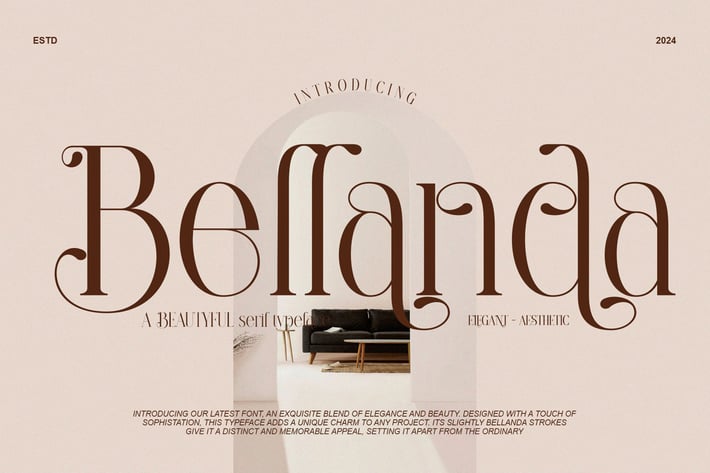
Bellanda Beautiful Serif Typeface
Bellanda Modern and beautiful Serif Typeface inspired by the famous minimalist logo perfect for the purposes of designing templates, brochures, videos, advertising branding, logos, invitation, layout design, elegant crafting, beauty design and other